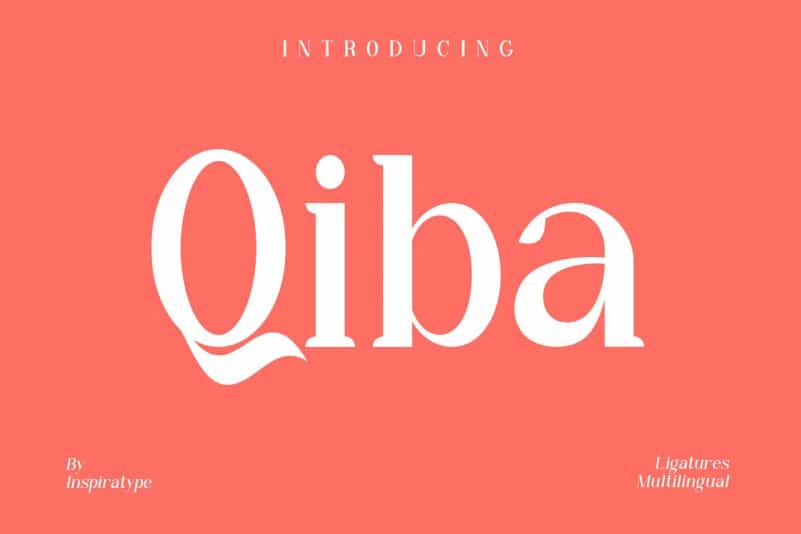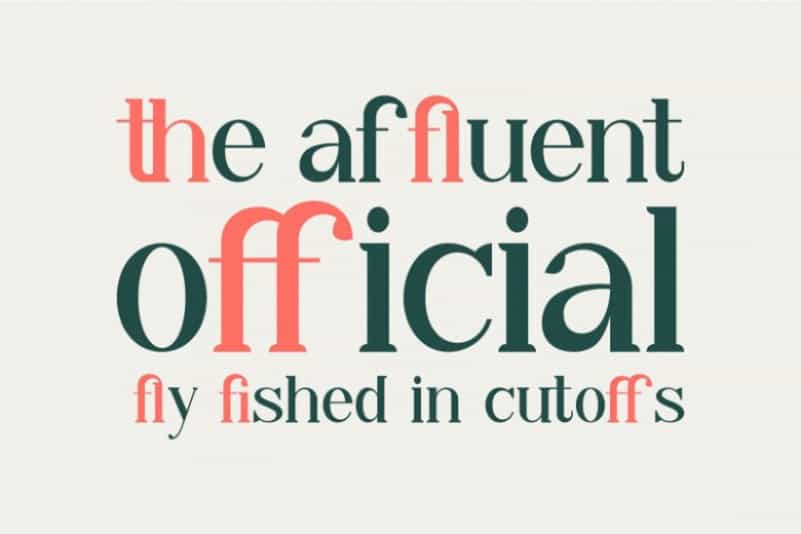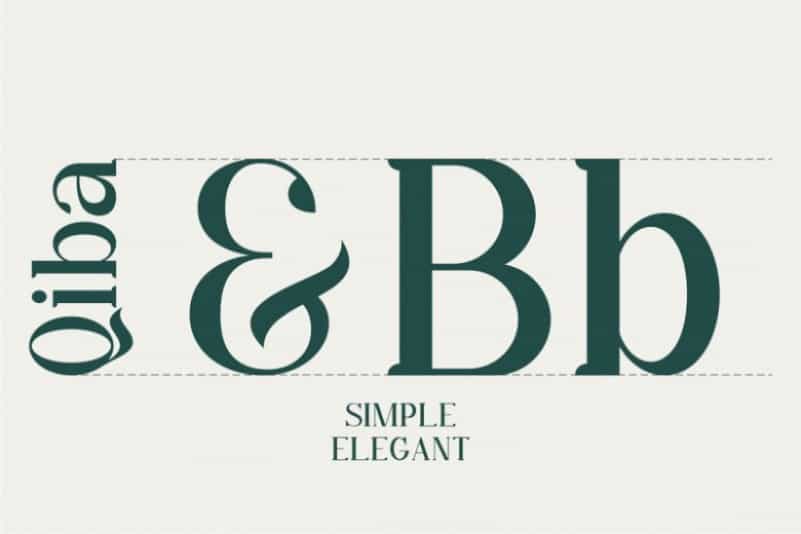
Qiba Font – The chic serif font with 2 fonts that are perfect for stylish and minimalist design. The strokes are of the medium contrast which was carefully designed. It is created and distributed by Inspiratype. “Qiba” is a handmade font display, which is based on the classic posters.